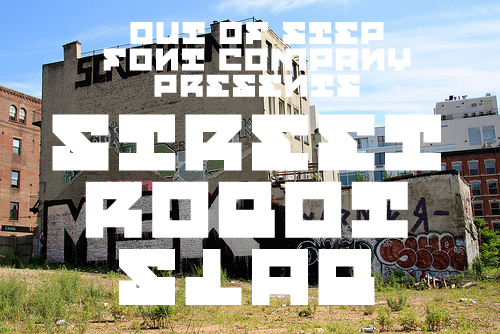
Font name: | Street Robot Slab |
Author: | Out of Step Font Company |
Note by Out of Step Font Company | |
This is a hard-edged square slab font based on the angles of west coast graffiti, designed specifically for masking. |